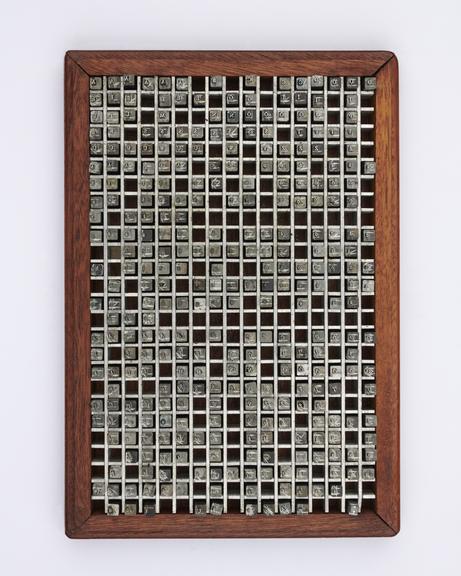
0.2 inch composition punches for Plantin (typeface series number: 110)
0.2 inch composition punches for Plantin (typeface series number: 110), font size 6. The box is marked with suffix STD Acc's meaning Standard Accents. In an original wooden box. Manufactured by Monotype Corporation.
A Monotype punch is made by tracing a pattern on a vertical pantograph machine. It is an engraved piece of hardened steel of a reverse-reading type character (letter, numeral or ornament) in relief from which the matrices are made. After cutting, the face of the punch was ground to the correct measurements denoted on the relevant chart. The punch was stamped into a piece of phosphor bronze that made a matrix from which type could be cast. Punches were made in standard sizes: 0.2" x 0.2", 0.4" x 0.4", 1" x 1", or 1" x 1.35". If a Monotype punch became damaged it could be replaced, identically, using the pattern.
Many typefounders have produced a version of Plantin. It is a roman with origins in the sixteenth century and named after the famous Antwerp printer, Christophe Plantin. However, it seems that he did not use the type, although his contemporaries used it in Frankfurt and Basle around 1570. The Monotype Corporation’s version of Plantin was developed by talented engineer Frank Hinman Pierpont (1860–1937). He was also the company’s Works Manager and the designer of a punch-cutting machine. He based the design for Plantin on artefacts found in the Plantin-Moretus Museum in Antwerp.
Plantin is a heavy face with a large x-height and sturdy serifs. Distinctive capital letters are the flat-topped ‘A’ and the splayed ‘M’. The two ‘V’ sections of ‘W’ cross, and there are serifs on all four upper points. The lowercase ‘a’ has a large bowl and the ‘t’ is narrow. The ‘j’ terminates in a pointed curve, and the main strokes of the curved letters, such as ‘b’, ‘d’, ‘o’ are shaded in an oblique manner. There are old style figures.
The standard weight of Plantin has an accompanying italic. The family comprises of a Titling, a Light face and Light italic, a Bold and Bold italic and a Bold condensed. The first size of Plantin Series 110 was released in 1913 for composition on the Monotype system. In total Monotype produced 25 sizes of this series. It was a bestseller for Monotype and has enjoyed enduring popularity as an all-purpose face.